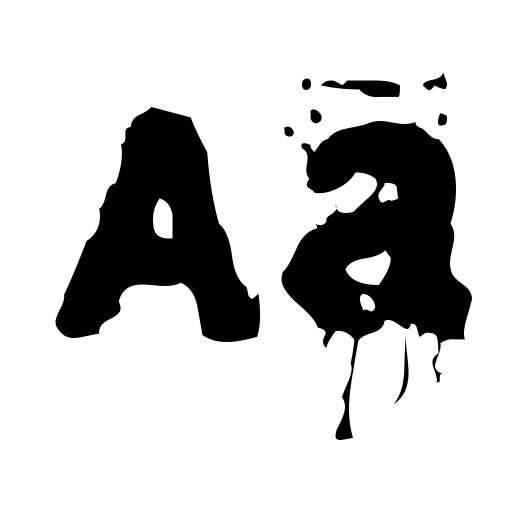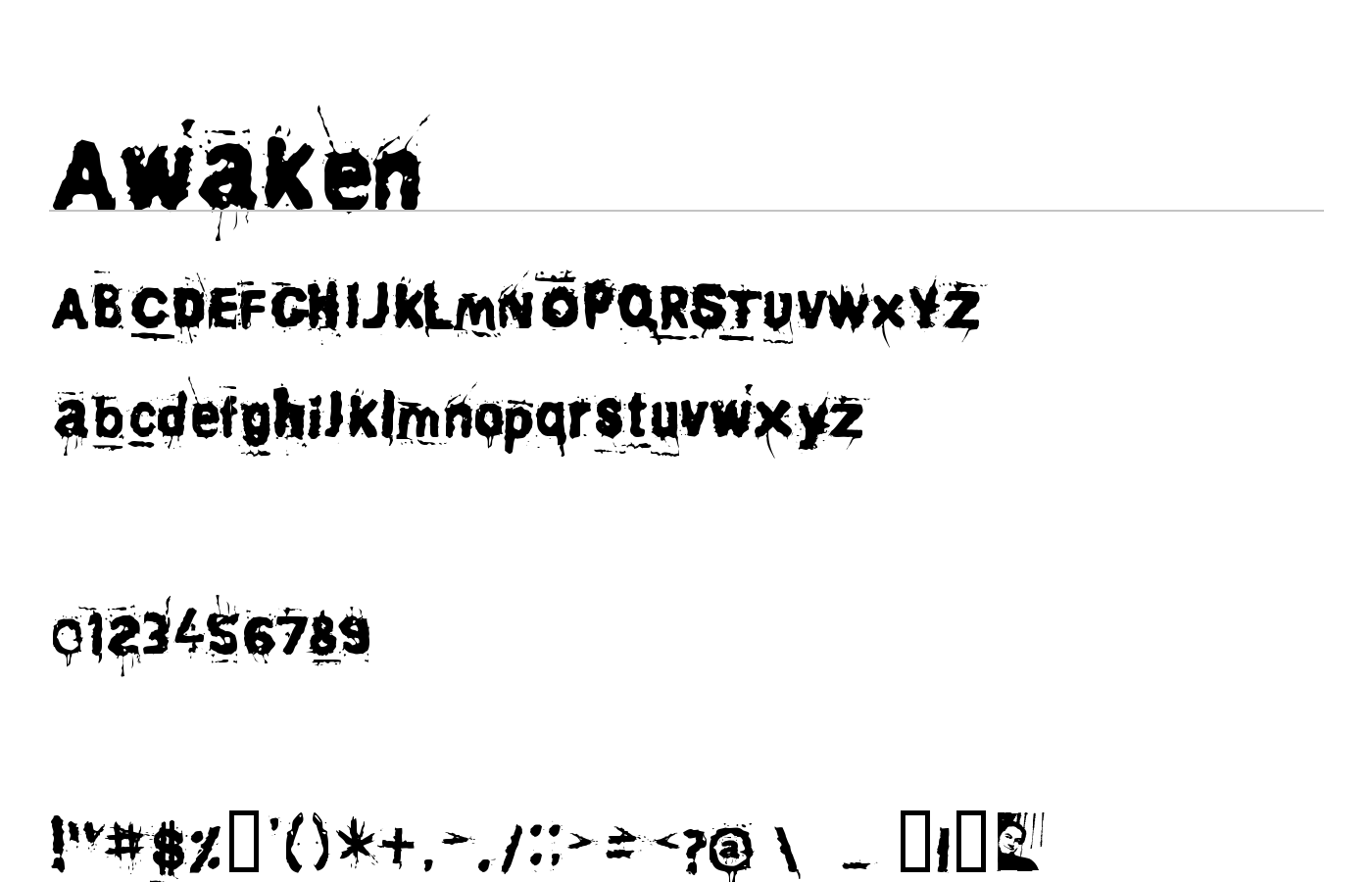
Awaken is a bold, distressed sans serif font with a rough, grunge texture that gives it an edgy and rebellious character. Its thick, uneven strokes and irregular edges create a raw, impactful style ideal for attention-grabbing headlines, posters, and designs that seek a gritty, urban vibe. This font works best in creative, alternative branding and artistic projects where a strong, unconventional expression is desired.
Awaken Font
About Awaken Font